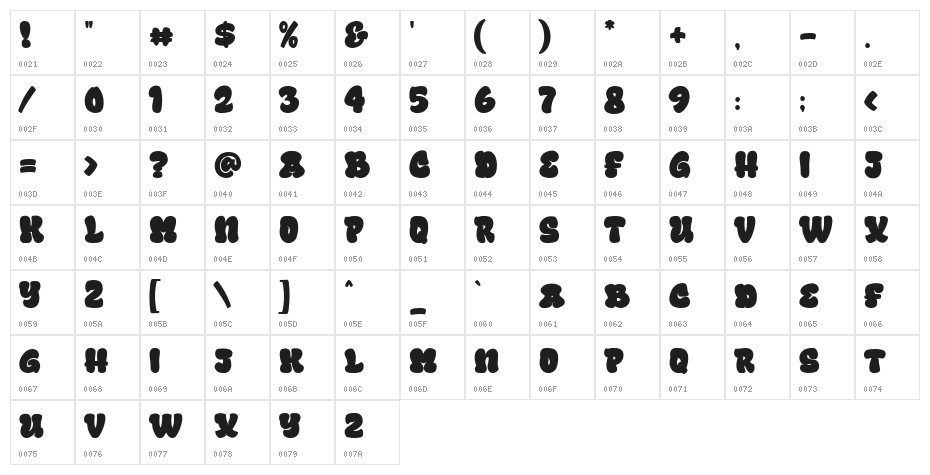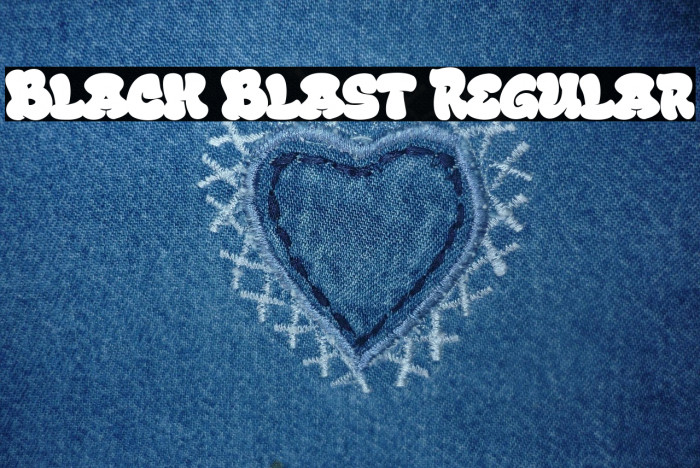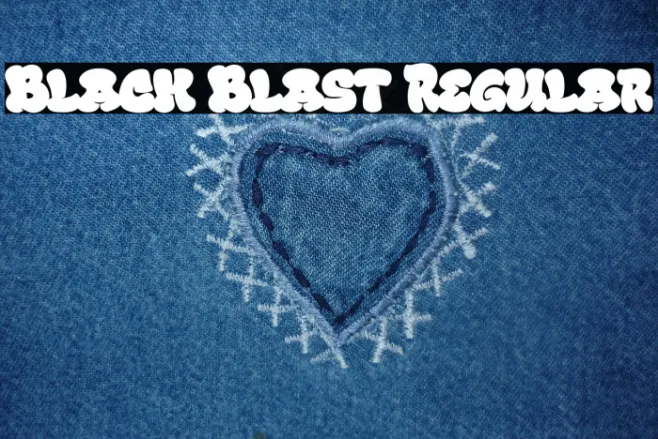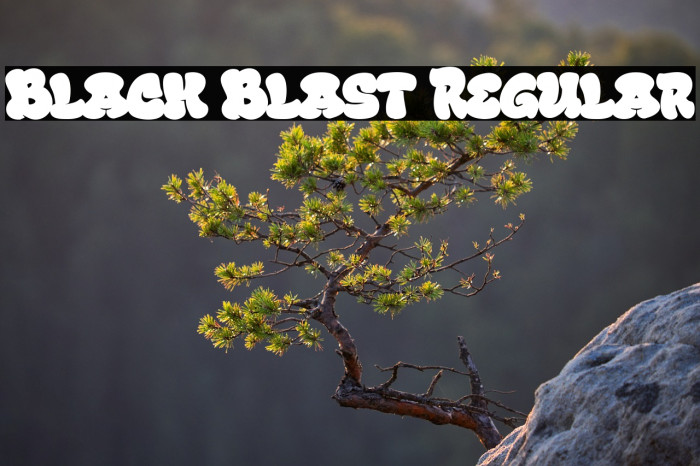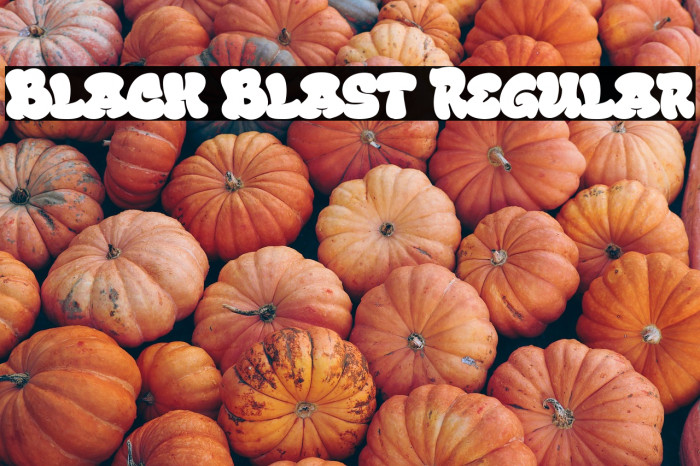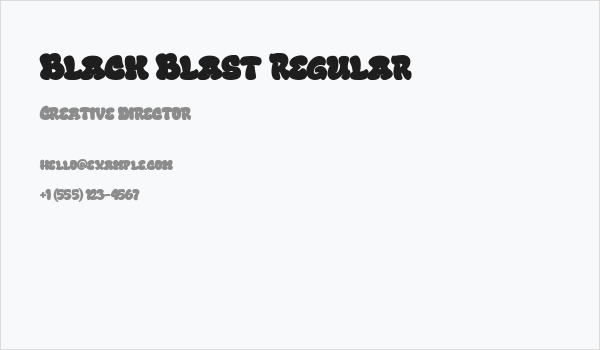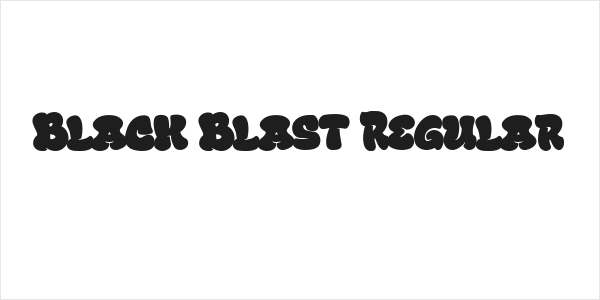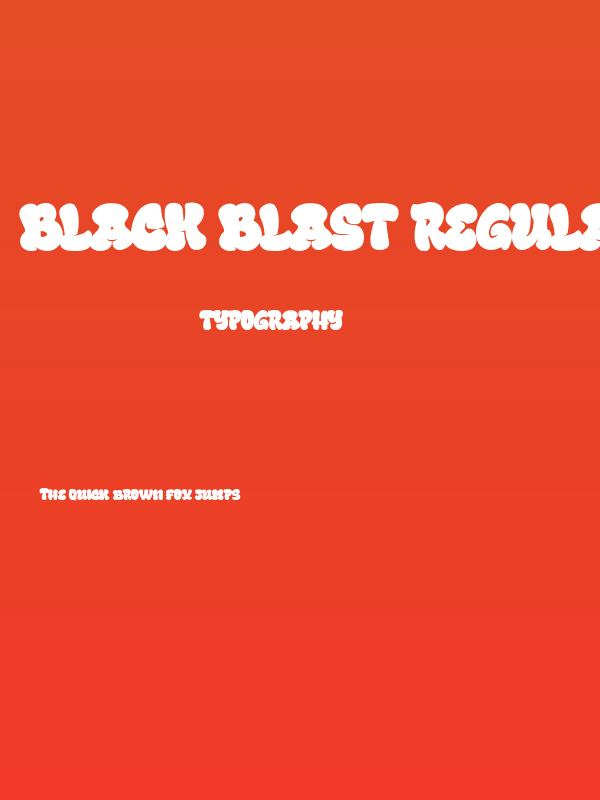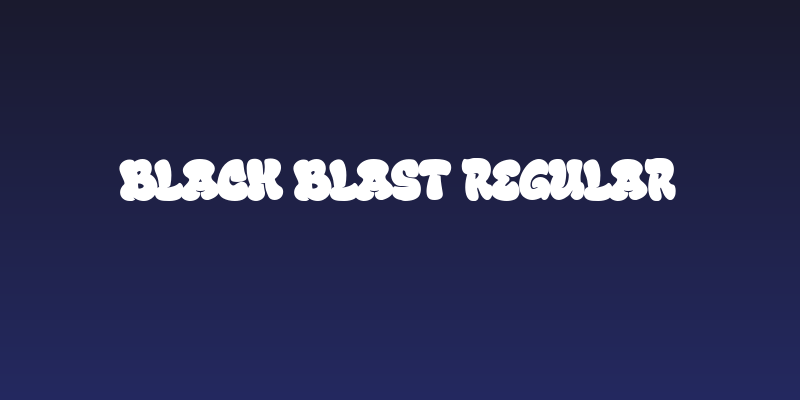
Black Blast Regular Font
Black Blast Regular Description
This font features a bold, playful design with thick, rounded strokes that create a sense of fun and energy. The characters are heavily weighted, giving them a strong presence on the page. The rounded edges and bubbly appearance make it ideal for designs that require a touch of whimsy or a youthful vibe. Each letter is distinct, with a consistent thickness throughout, ensuring readability despite the bold style. The numbers and special characters follow the same design principles, maintaining the overall cohesive look. This font is perfect for projects that aim to capture attention and convey a lively, dynamic message.
| Proposed Projects | Ideal for children's books, playful branding, event posters, and merchandise designs. |